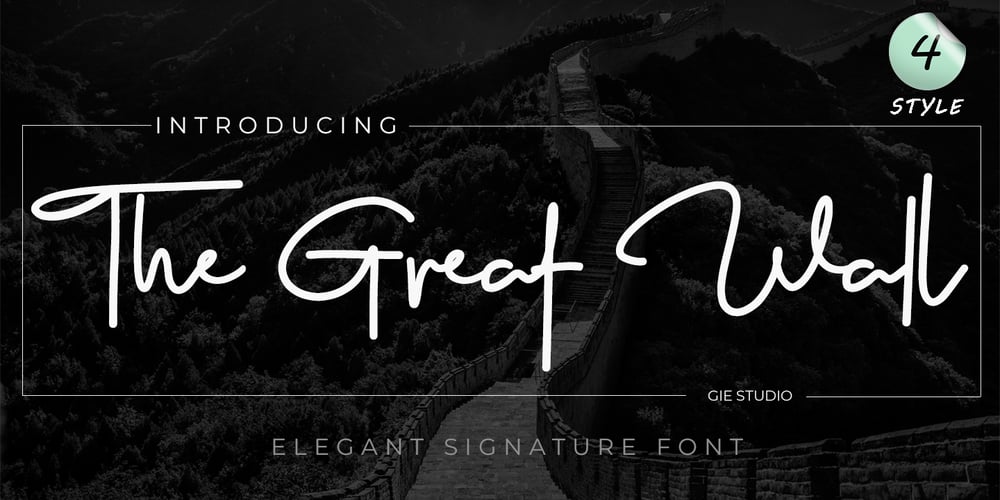
The Great Wall Font Family was designed by Gie Studio and published by Gie Studio. The Great Wall contains 4 styles and family package options. The Great Wall, as the name of this font is created and inspired by a legendary world masterpiece, with a special uniqueness in a style that is very firm but looks elegant, so it is suitable for you to use for a variety of designs that accentuate the professional and charming. Various advantages of this font : This font consists of four (4) very interesting styles, please choose ! With a rather thick but consistent style line, accentuating the firmness and professionalism of the users of this font. This font is complete with Uppercase, Lowercase, Numeral, Punctuation, Multilingual support and ligature letters in each style. Can be applied in various software, such as Ms.office, Photoshop, Coreldraw, Adobe Illustrator, Inkscape and others. There are many purposes that are very suitable to use this font, among others: writing the name of a professional profession, for book covers, fashion branding, watches, jewelry, marketing products, magazines and more. With you using this font for any purpose, I hope your business will be more successful and known to the world as the name of this font.Thank you, I say for your visit and purchase.